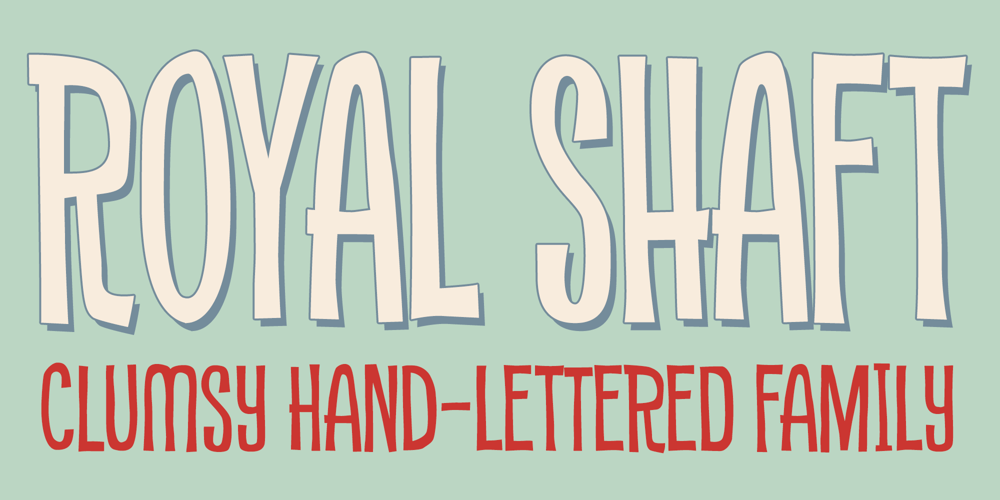
Royal Shaft Font Family was designed by Brian J. Bonislawsky, Dave Cohen and published by One Eyed Squid. Royal Shaft contains 3 styles and family package options. A font family that doesn’t dance, but gracefully stumbles along with its clumsy vibe. Royal Shaft come in three widths: Condensed, Regular, and Wide for your typesetting pleasure. Family pricing is set at 3 for the price of 2!(Royal Shaft contains an extended Latin character set with added Vietnamese support.)